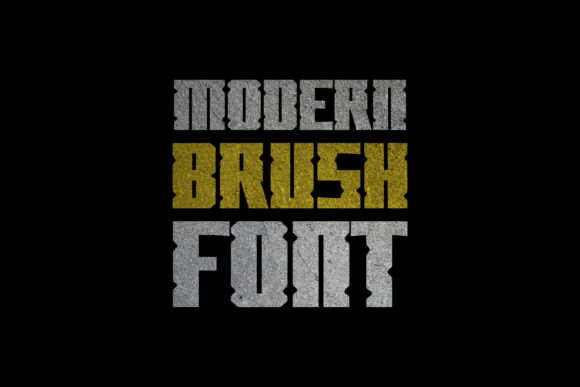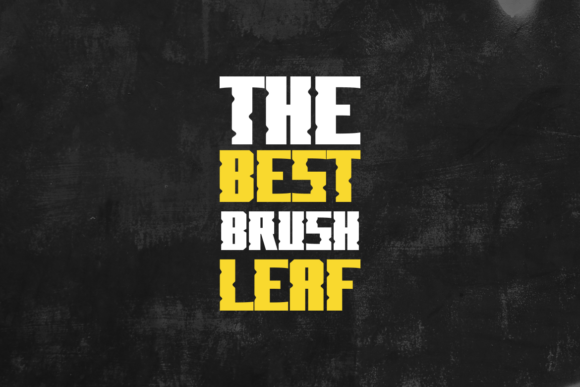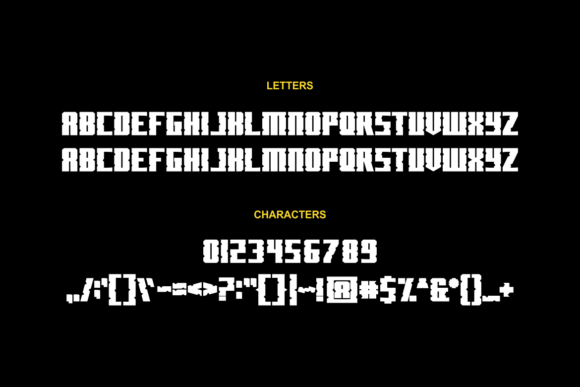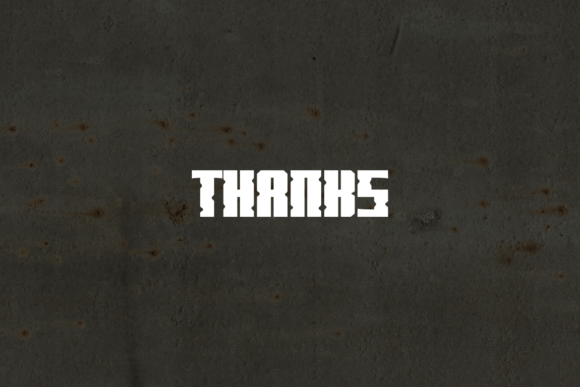
Introducing Cluntbrush Font: The Ultimate Modern Display Font
In the world of typography, a good font can make all the difference in creating a lasting impression. For designers and crafters looking for a bold and authentic display font, Cluntbrush Font is an excellent choice. This modern font is designed to make a statement, and its versatility makes it suitable for a wide range of branding projects.
What is Cluntbrush Font?
Cluntbrush Font is a bold and authentic display font that is perfect for creating stunning visual content. Its modern design makes it ideal for logos, t-shirt printing, and various other branding projects. The font’s unique style and character make it stand out in a wide range of contexts, from digital media to print materials.
Key Features of Cluntbrush Font
- Bold and Authentic Design: Cluntbrush Font boasts a bold and authentic design that is sure to grab attention.
- Versatility: The font is suitable for a wide range of branding projects, including logos, t-shirt printing, and more.
- Modern Style: Cluntbrush Font features a modern style that is perfect for creating fresh and contemporary visual content.
- Easy to Read: Despite its bold design, Cluntbrush Font is easy to read, making it perfect for use in various contexts.
Use Cases for Cluntbrush Font
Cluntbrush Font is an incredibly versatile font that can be used in various contexts. Here are some of the most popular use cases:
- Logo Design: Create a bold and memorable logo for your brand using Cluntbrush Font.
- T-Shirt Printing: Use Cluntbrush Font to create stunning t-shirt designs that are sure to stand out.
- Branding Projects: From business cards to billboards, Cluntbrush Font is perfect for any branding project that requires a bold and authentic display font.
- Digital Media: Use Cluntbrush Font to create eye-catching social media graphics, blog posts, and more.
Why Choose Cluntbrush Font?
With so many fonts available, why choose Cluntbrush Font? Here are a few reasons:
- Unique Style: Cluntbrush Font features a unique style that sets it apart from other fonts.
- High-Quality Design: The font is designed with high-quality and precision, ensuring that it looks great in any context.
Tips for Using Cluntbrush Font
Here are a few tips for using Cluntbrush Font:
- Use it Boldly: Cluntbrush Font is designed to be bold and authentic, so don’t be afraid to use it in large sizes.
- Experiment with Colors: Try pairing Cluntbrush Font with different colors to create stunning visual effects.
- Mix and Match: Experiment with pairing Cluntbrush Font with other fonts to create unique and interesting typography.
In conclusion, Cluntbrush Font is an excellent choice for designers and crafters looking for a bold and authentic display font. Its modern design, versatility, and ease of use make it perfect for a wide range of branding projects. Whether you’re creating a logo, t-shirt design, or other visual content, Cluntbrush Font is sure to make a lasting impression.